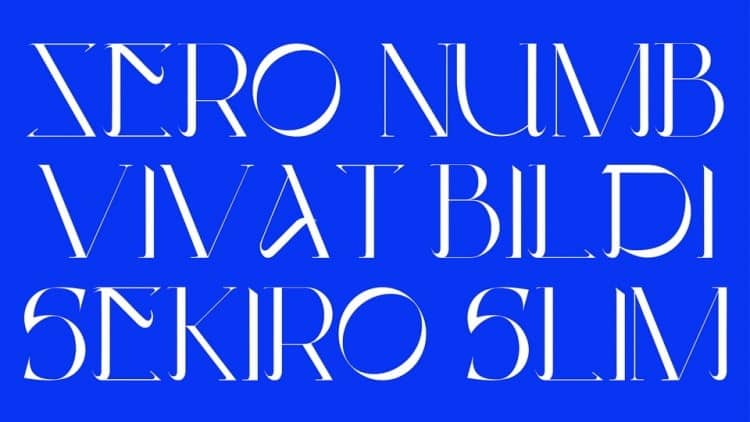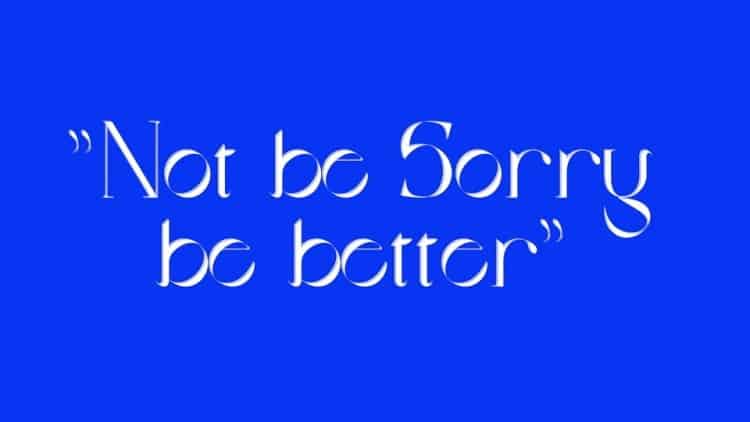
Otto Attack Type Display Font
Otto Attack Type Display Font is a Feminine, modern, and elegant font. It has a unique curvy style. Made from font designer named Ivan Tsanko. It’s a contemporary accent contrasting serif typeface. It works best for display use, logo design, headlines, posters and many more.